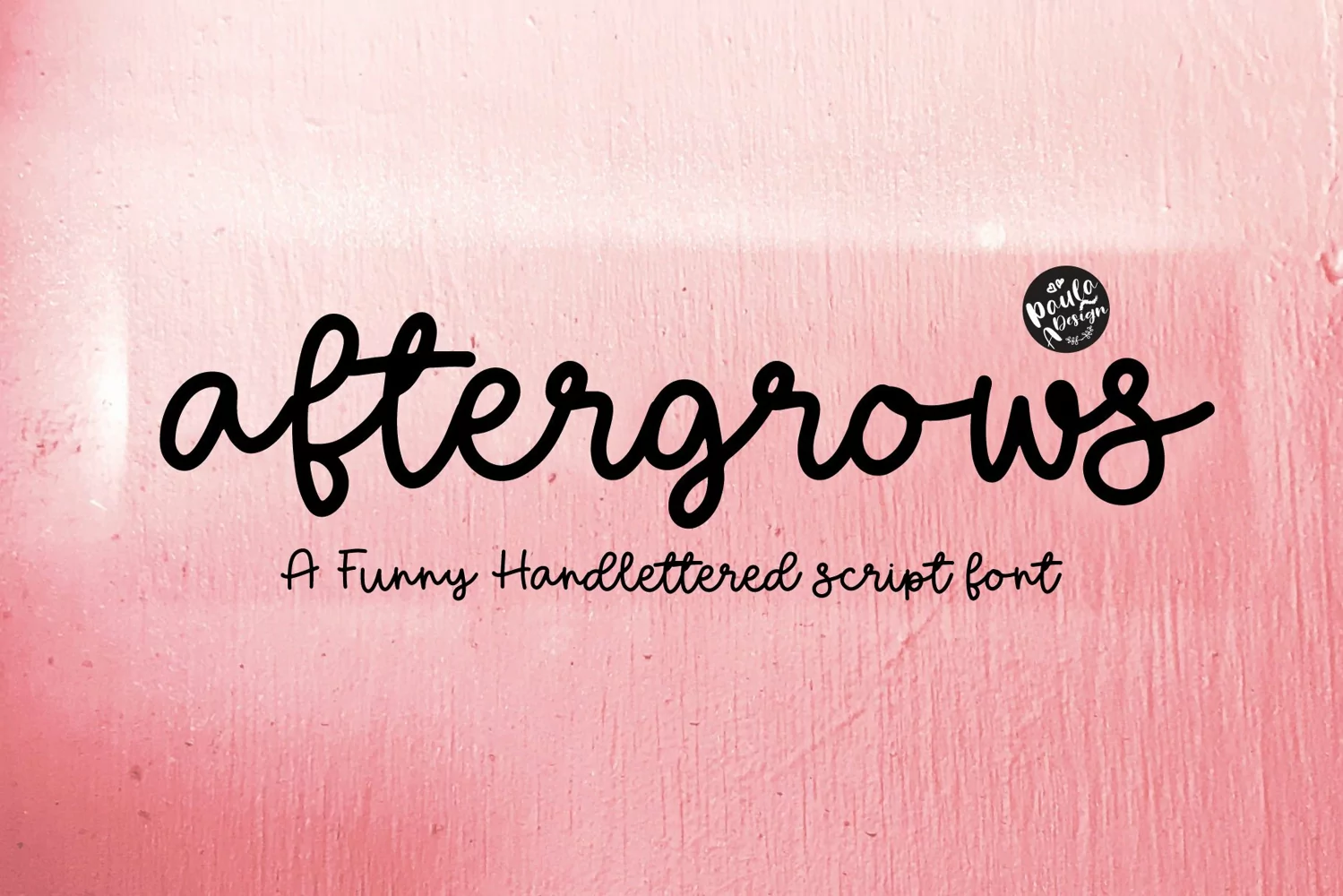
Aftergrows is a chic brush style script font. Hand lettered, each letter has been carefully created to produce a playful font style. Ideal for high impact headlines, and yet will also work well for blogs, branding, and other uses. Aftergrows is a fun font, which lends that cheery vibe to your projects.